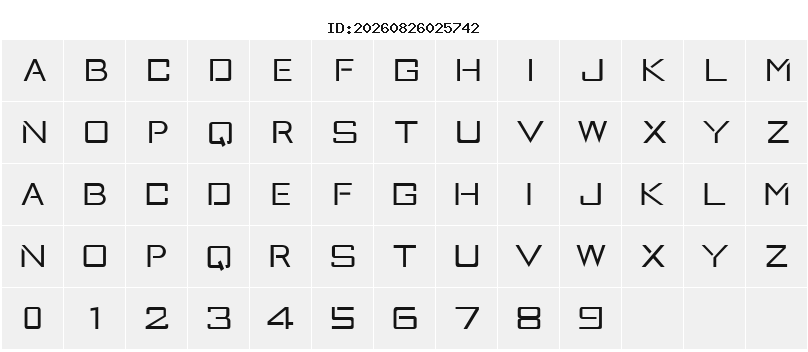
Xperia Preview
• Font Name: Xperia
• Full Font Name: Xperia
• Character Count: 68
About Xperia.ttf
Xperia.ttf is a modern, elegant sans-serif font designed for ultimate readability and visual harmony. Perfect for branding, headlines, web design, and print materials.